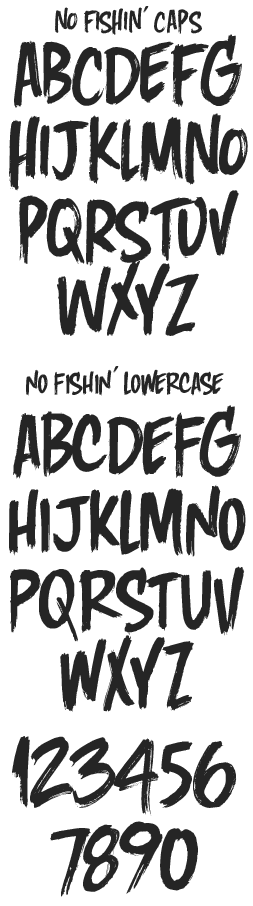
LHF No Fishin' Two different sets of caps: one version on the uppercase keys and a slightly different version on the lowercase keys. Alternating uppercase and lowercase by tYpInG LiKe tHiS will create a true hand-lettered appearance. Includes some bonus swashes too (see chart below).